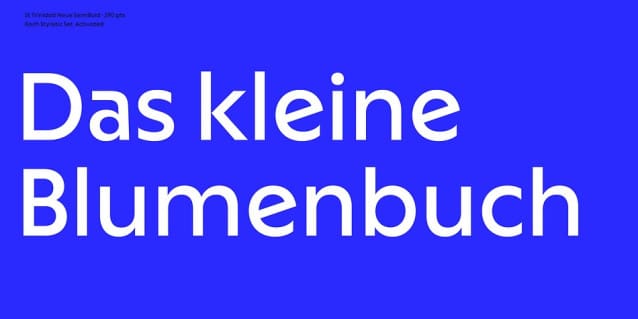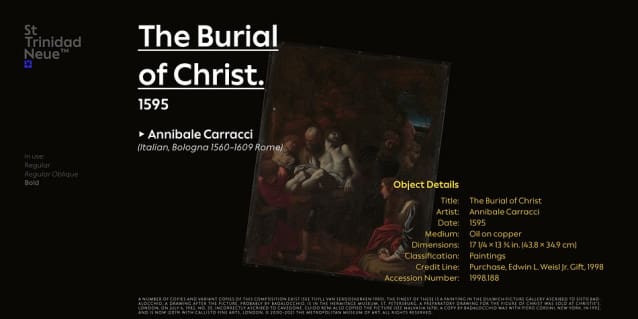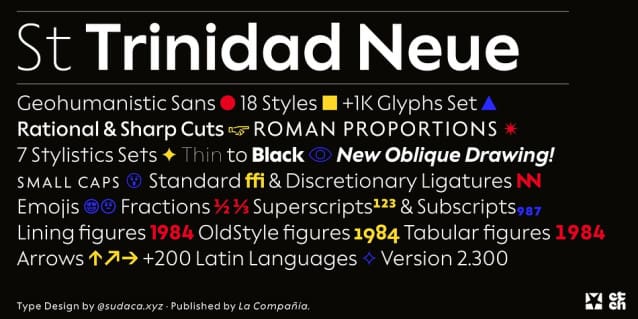
St Trinidad Neue Font Family
St Trinidad Neue Font Family, is a geohumanistic typeface developed by the Chilean Type Design Studio Sudaca. The origin of this work lies in an exercise of comparing classic Roman proportions (Trajan Columns) with the capital letter set of Futura by Paul Renner. I wanted to create my own Sans Serif interpretation of classic proportions. I started working with letters A, H, N, O, R and S.
When I finished the uppercase set, this exercise transformed itself into a project. I started to develop a set of lowercase letters choosing as direct references Futura and Kabel by Rudolph Koch; always having in mind that the objective was to find a balance between the humanist and the rational or geometric. Here is when this group is formed, giving its name and identity to this family: Paul, Rudolph & Alexis.
The result is a typeface with an elegant, modern and versatile aspect. Its seven stylistic sets make St Trinidad Neue Font™️ into a Swiss army knife to compose short and medium texts for editorial design, branding, exhibitions, motion graphics, etc.
The family consists of nine weight variants and its corresponding oblique versions. It counts with many OpenType characteristics in each variant, including small caps, seven stylistic sets that can be combined, standard ligatures and discretionals ligatures, proportional numerals, tabular numbers, fractions, superscript, subscript, normal punctuation and also aligned to small caps and capital letters, arrows, emojis and more. With more than 1000 glyphs, this typeface has a wide idiomatic range that includes more than 190 Latin languages.
Trinidad Neue™ is the new and alternative version of LC Trinidad™.